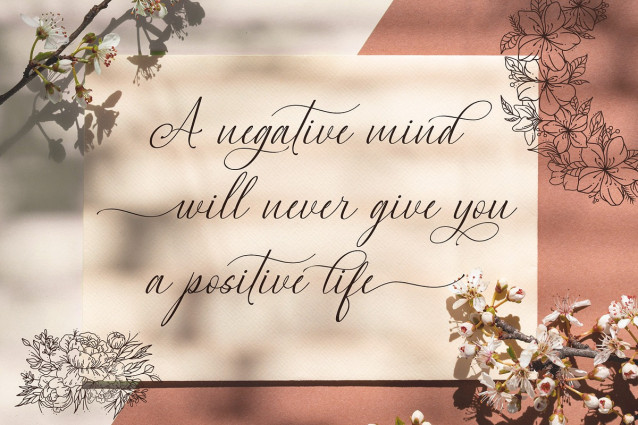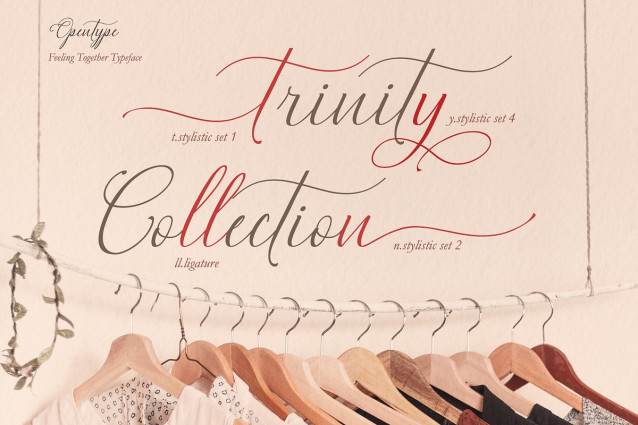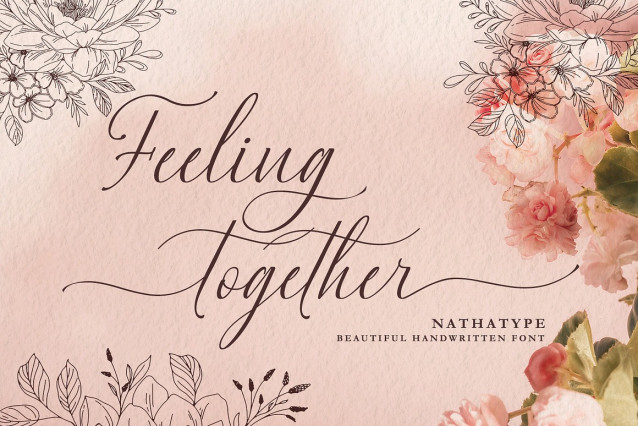
Feeling Together Handwriting Font
Feeling Together Handwriting Font a natural-looking design using a clean, modern font. A badly designed font can damage the whole project display and produce a very unexpected result. For such a reason, we are glad to introduce you to our handwritten font to help you create personal nuances on your projects. This is the Feeling Together, a handwritten font carefully created to ensure its natural, unorganized display for a handwriting-like design. Each letter is interconnected in contrast, thin, thick wipes. For a maximum legibility, Feeling Together is suitably applicable for big text sizes. You can enjoy the available features here as well.